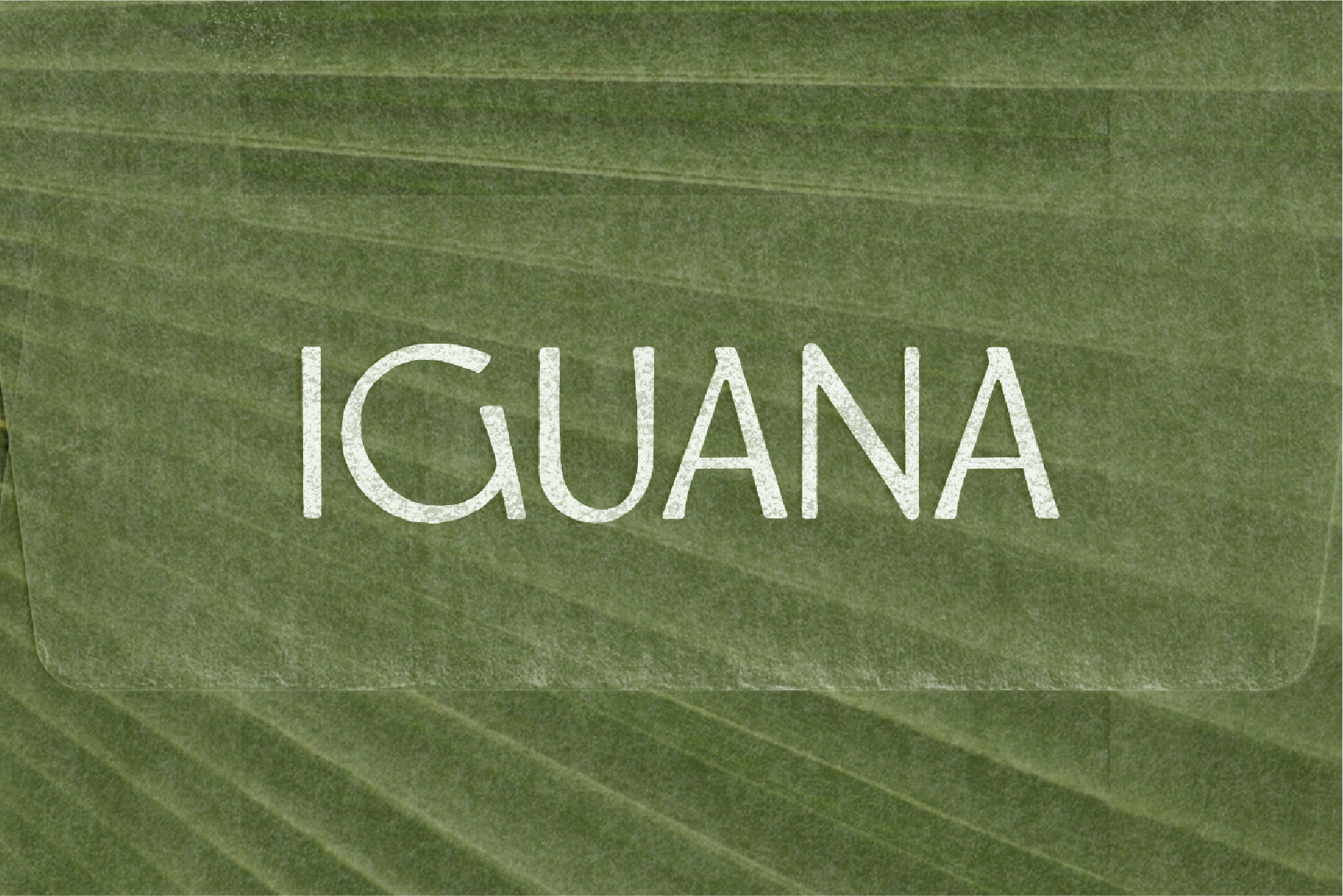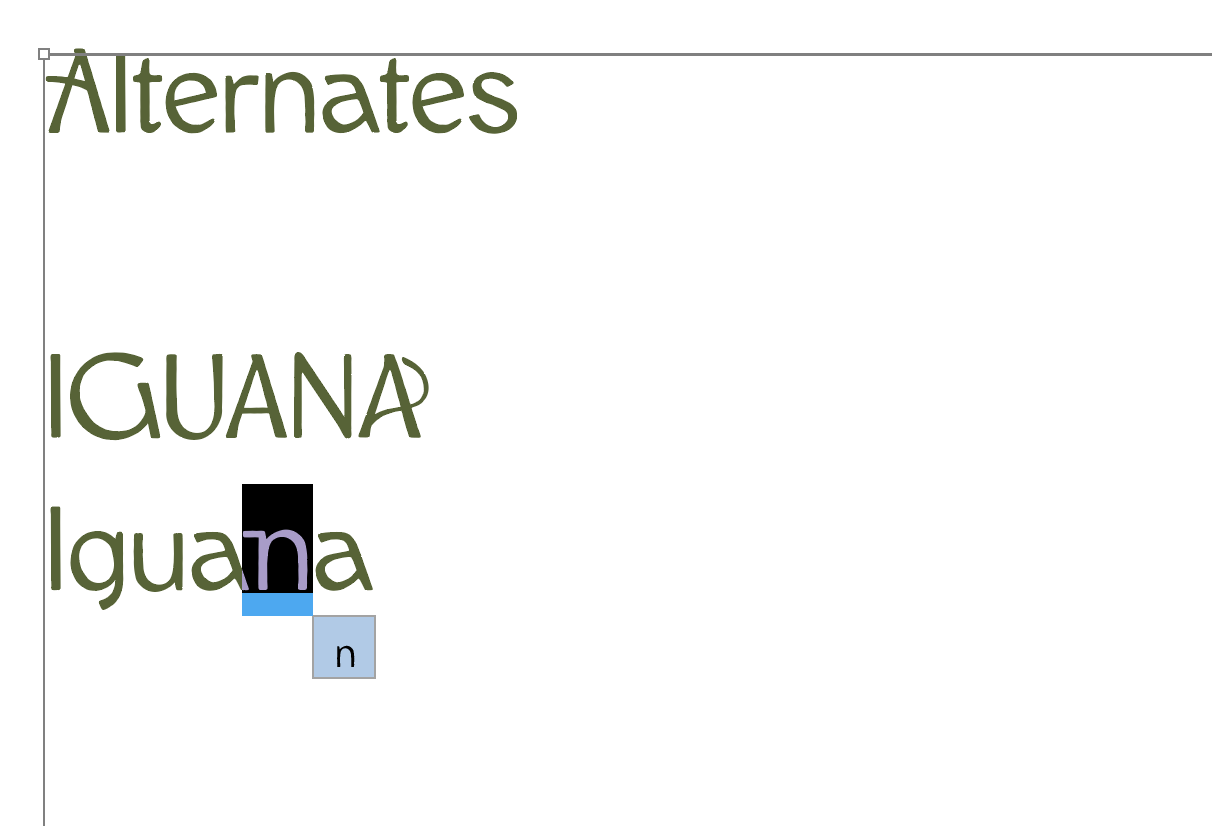
Cowboy
UPDATED CHARACTER SET!
A hand-drawn sans-serif font for uses in western themes and beyond. It is rugged, flexible, yet maintains character and a sense of human touch or being aged by time.
Somewhere in-between Santa Fe, New Mexico and Jackson, Wyoming is a never ending spring of inspiration. Ancient cliff dwellings, petroglyphs, and stone formations elicit awe amidst the arid climate. In spite of the harsh weather, there is abundant life. Cacti swollen with water, a fleeting sight of a road runner - these are the signs of the wild west.
In my childhood I spent many a roadtrip exploring the vast landscapes of the southwestern United States, although usually pretty close to the Rocky Mountains. It is these pivotal memories that I repeatedly find myself reliving through art and design.
COWBOY was one of my first fonts...I am partial to it for its versatility and its even but imperfect characteristics.